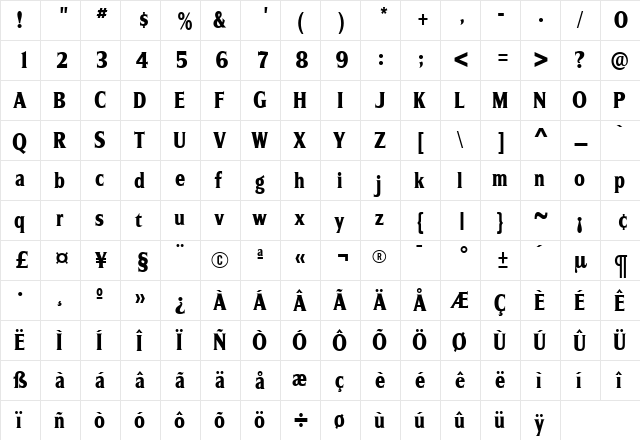
SilveradoExtraBoldCondensed Roman Font Preview
Design Context for SilveradoExtraBoldCondensed Typeface
SilveradoExtraBoldCondensed offers clean, dependable letterforms without strong stylistic allegiance, making it a practical choice for designers who need flexibility. Its bold stroke weight gives it real presence on the page. The condensed width makes it efficient for tight spaces without sacrificing legibility.
Pro Tip: Pair SilveradoExtraBoldCondensed with a font of contrasting weight or personality to build a more expressive typographic hierarchy.